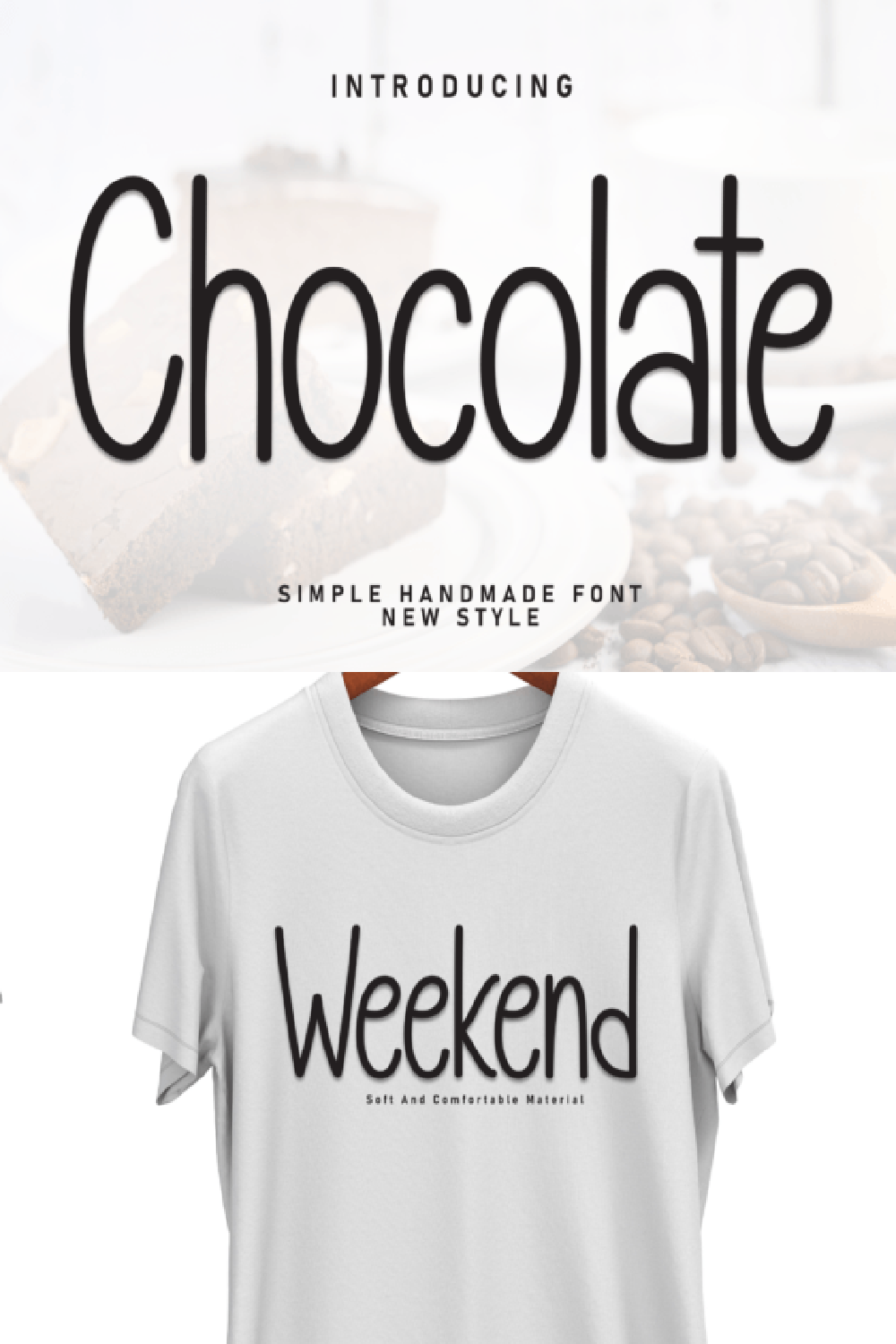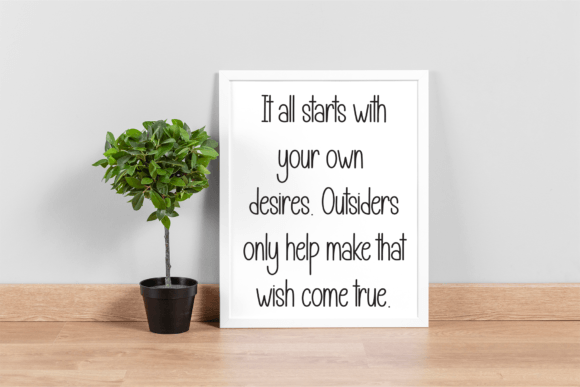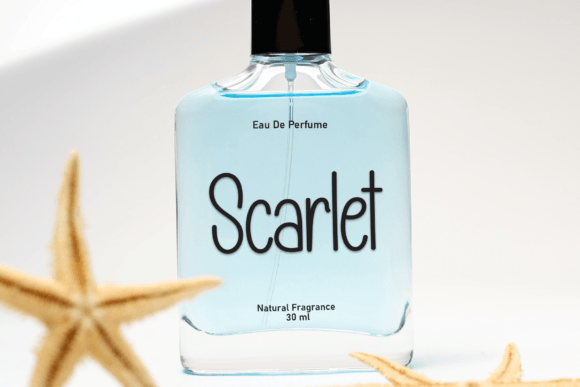
Chocolate Font Font
About the Chocolate Font Font
Welcome to the world of Chocolate Font Font, a typeface that will inspire your next great project. Chocolate is a sweet and friendly handwritten font. Cute and fun, this font is ideal for writing wedding invitations, cards, or any other design that might need a fun touch!